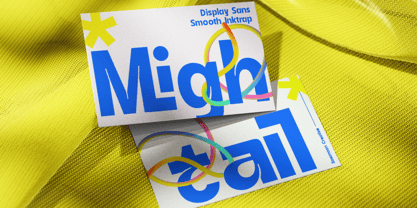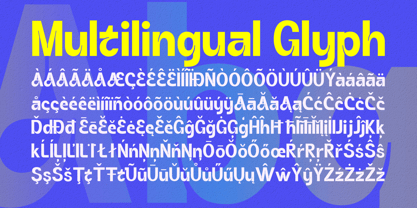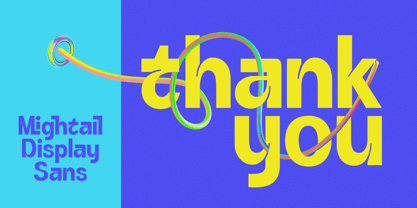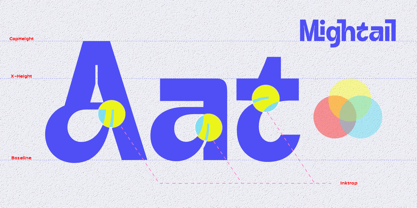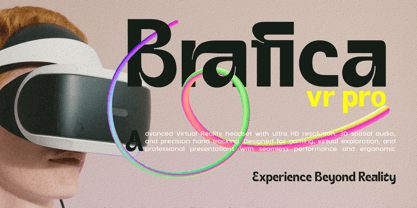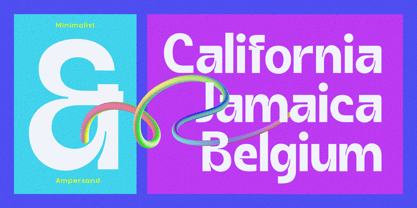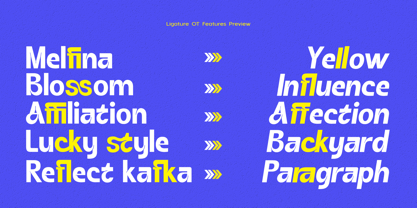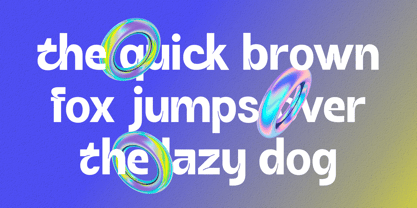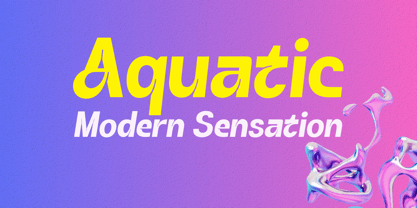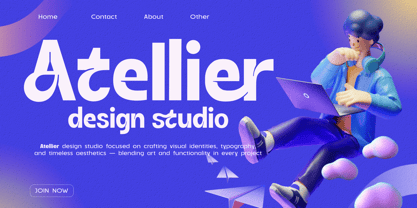
Mightail
by Saemoon Creative
The Mightail Font Family was designed by Sapto Susilo and published by Saemoon Creative. Mightail contains 2 styles and family package options.
Mightail Complete Family
Mightail is a display sans-serif font that blends bold shapes with modern inktrap details, delivering a strong and distinctive appearance. Its design features upright, solid letterforms with sharp cut edges, giving an industrial yet contemporary feel.
Mightail comes in two styles: Regular and Oblique, offering versatility for various design needs. Equipped with a selection of ligatures and alternates, this font adds a dynamic and creative touch to any text, perfect for headlines, branding, editorials, and other creative projects.
Features:
• Uppercase & Lowercase
• Multilingual Support
• Alternates & Ligatures
• Punctuation & Symbols
• Regular & Oblique Styles
• Inktrap Details
Mightail is the perfect choice for design projects that require a bold character with a modern futuristic touch.